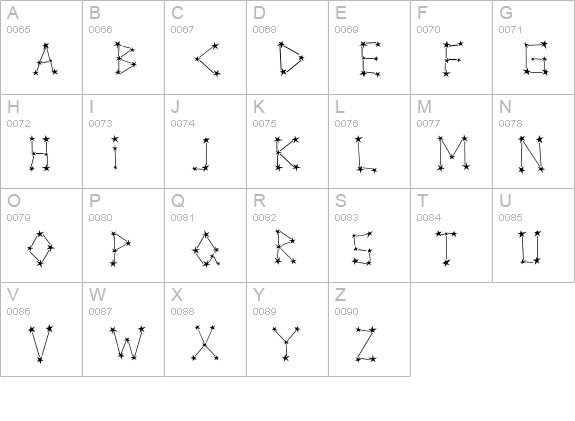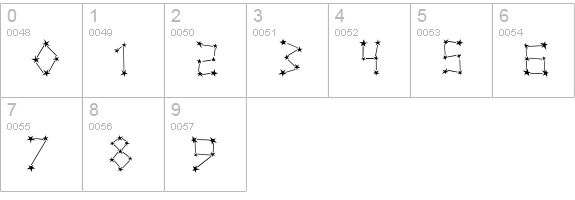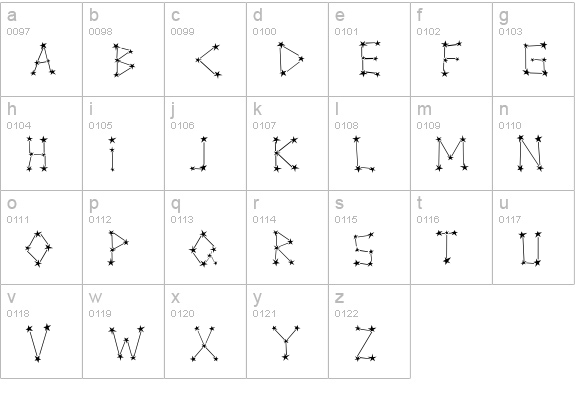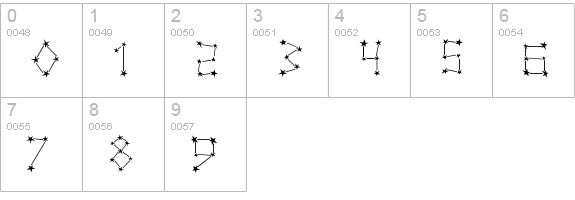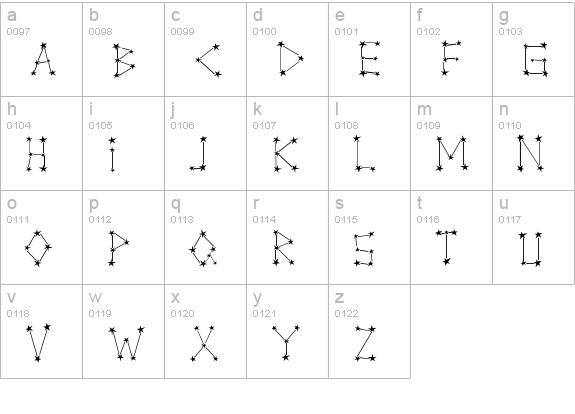
Milky Way Font Details
The Milky Way font is a whimsical and futuristic typeface that will add a touch of otherworldly charm to your designs. Its unique and playful curves evoke a sense of wonder and creativity, making it perfect for projects that require a touch of magic. What makes Milky Way even more special is that it is completely free to download at FontsMarket.com. This means that you can easily access this stunning font without any cost, allowing you to bring your creative visions to life without breaking the bank. Whether you're designing a poster, creating a logo, or crafting a social media post, Milky Way is sure to make your work stand out from the crowd. With its eye-catching style and free availability, this font is a must-have for any designer looking to add a touch of celestial beauty to their projects.